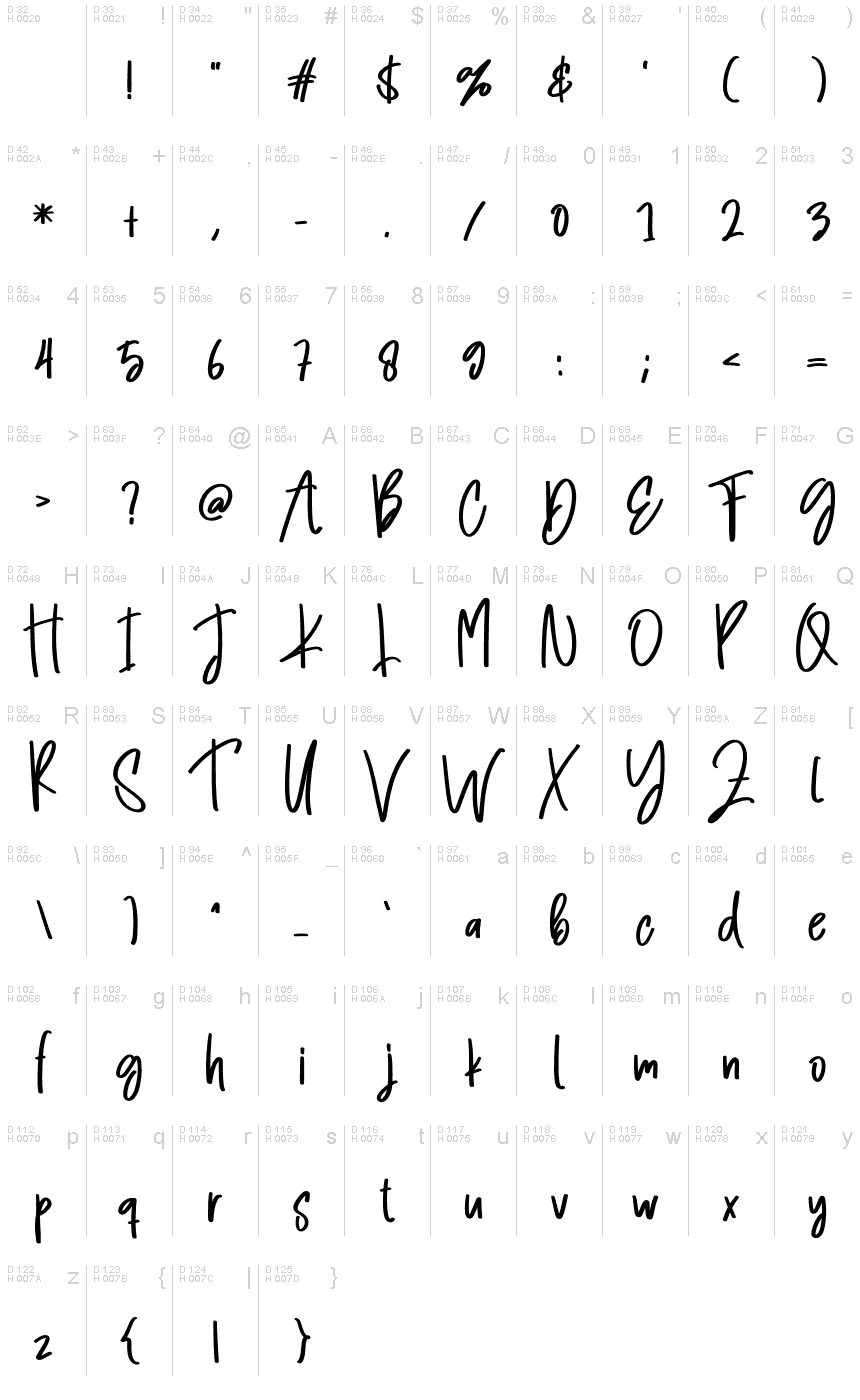
Brigeslow
Brigeslow, the captivating handwritten font by scratchones, exudes a whimsical charm with its semi-light weight. Its flowing strokes and organic curves make it perfect for projects that seek a touch of playfulness and elegance. Ideal for greeting cards, wedding invitations, or branding materials, Brigeslow adds a personal and unique feel to any design. Whether you're crafting a dreamy logo or designing an enchanting book cover, this font will ensure your project stands out from the crowd with its delightful handwritten style.
The latest style letters are perfect for wall displays, wedding invitations, social media post logos, advertisements, product packaging, product designs, labels, photography, watermarks, invitations, stationery, and any project that requires taste handwriting.